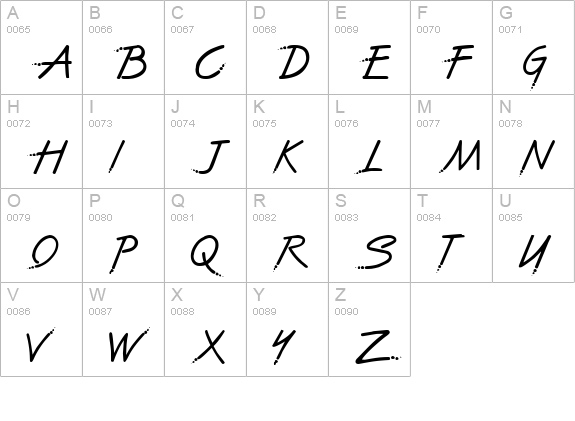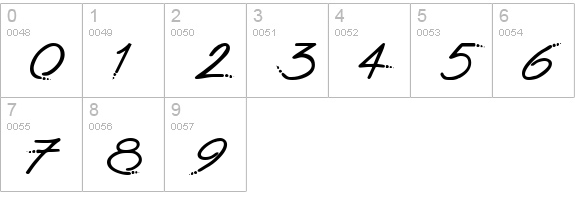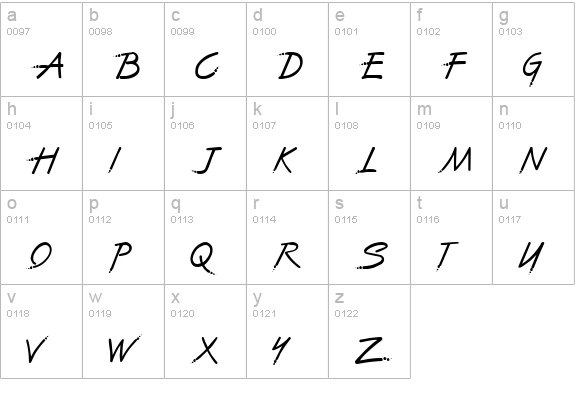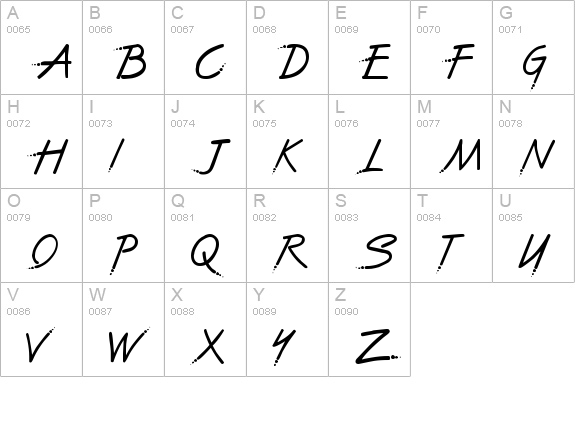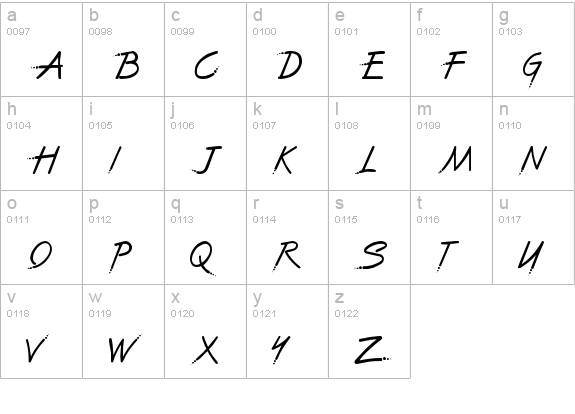
The Font With No Name Font Details
Introducing The Font With No Name, a captivating and mysterious typeface that defies conventional categorization. With its unique design and enigmatic essence, this font will elevate any creative project to new heights of intrigue and fascination. The Font With No Name is an embodiment of artistic expression, blending modernity with an air of enigma. Its carefully crafted curves and unconventional letterforms create a mesmerizing visual experience, making it perfect for captivating headlines, eye-catching logos, and inspiring typography art. This extraordinary font is freely available to download at FontsMarket.com, your go-to destination for premium fonts. Whether you're a professional designer seeking inspiration or an enthusiast looking to add a touch of uniqueness to your personal projects, The Font With No Name is an exceptional choice that won't disappoint. With its versatility and distinct personality, this font effortlessly adapts to various design styles, ranging from bold and extravagant to minimalist and understated. Its alluring charm will effortlessly draw attention and leave a lasting impression on anyone who encounters it. The Font With No Name is not just a font; it's a statement. It defies the boundaries of traditional typography and invites you to explore new realms of creativity. So why settle for ordinary fonts when you can embrace the extraordinary? Download The Font With No Name today and let your imagination run wild.